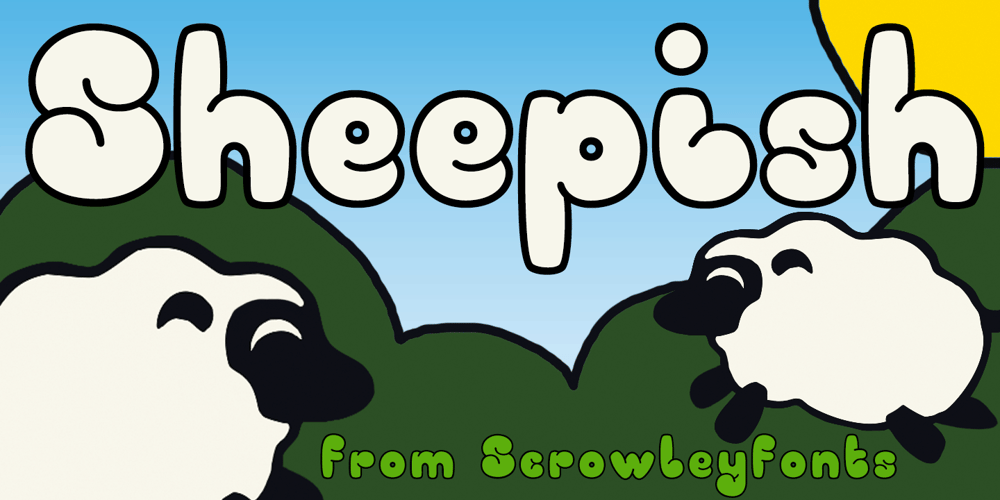
Sheepish Font Family was designed by Tanya Davis and published by Scrowleyfonts. Sheepish contains 2 styles and family package options. “Bubble writing is the international font of the teenager.” – Anonymous This was the inspiration for creating this font. I certainly spent hours as a young teenager perfecting my bubble writing style. The only difference with this font is that the letters do not overlap without some manipulation and layering. It is a young, fun, cheerful, very bold, bright font with lots of opportunities for adding colour. It comes as one font in two files, Sheepfill being designed to be layered underneath to provide fill, not for use on its own. Sheepish can be used on its own or with its twin.